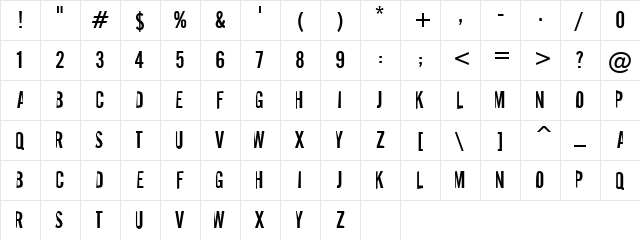
Dentist Regular Free Font
Dentist Regular
Complete Dentist Regular glyph index. Displaying only characters natively supported by Dentist Regular font.
Design Context for Dentist
Dentist is a composed and adaptable typeface that performs quietly and consistently across a wide range of design contexts.
Pro Tip: Use Dentist in both headline and body roles to test its range before committing to a single application.